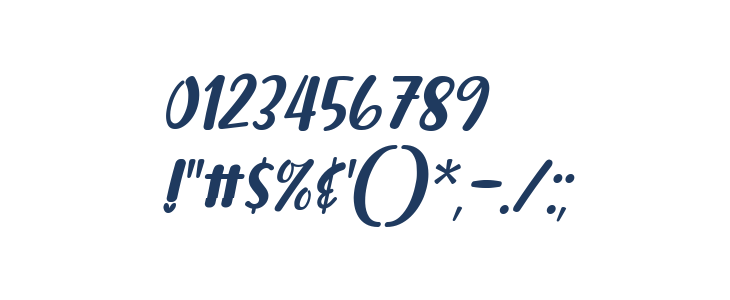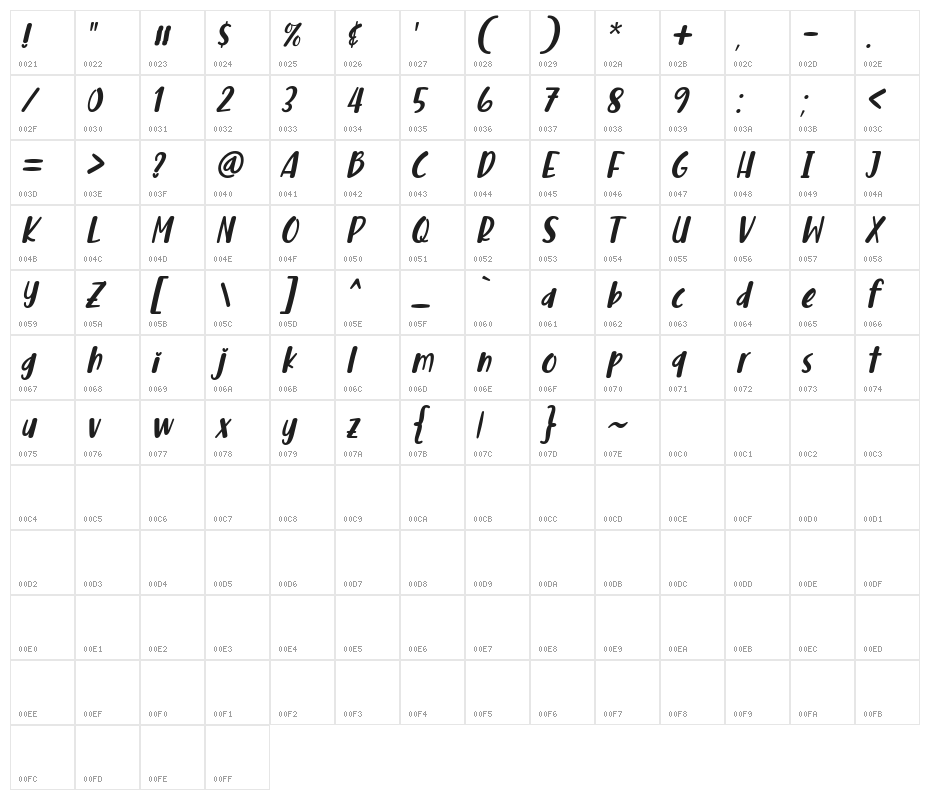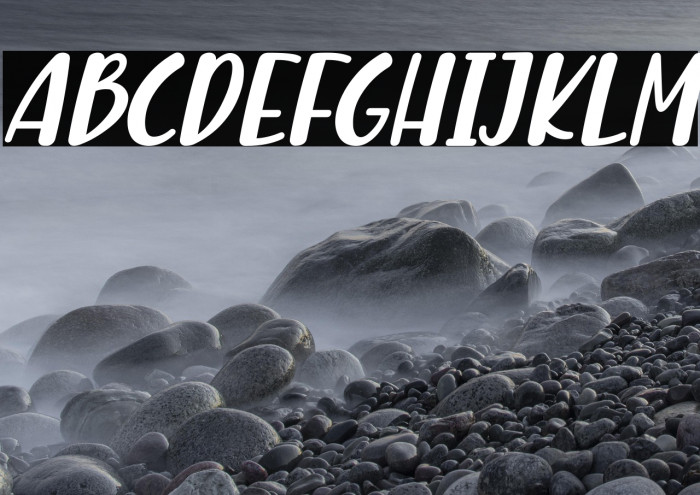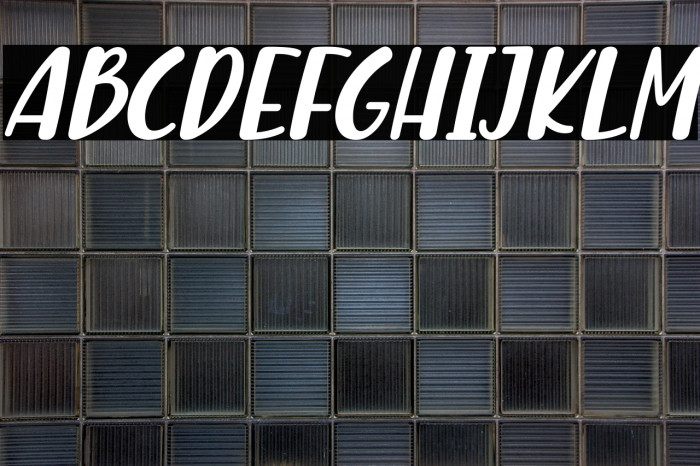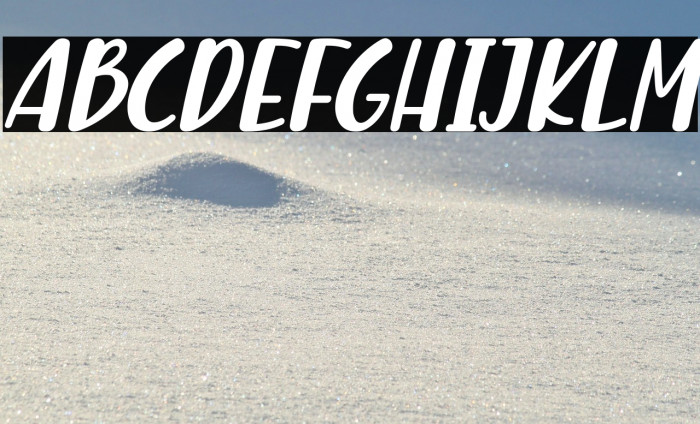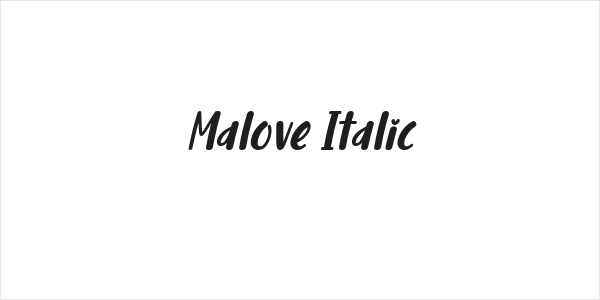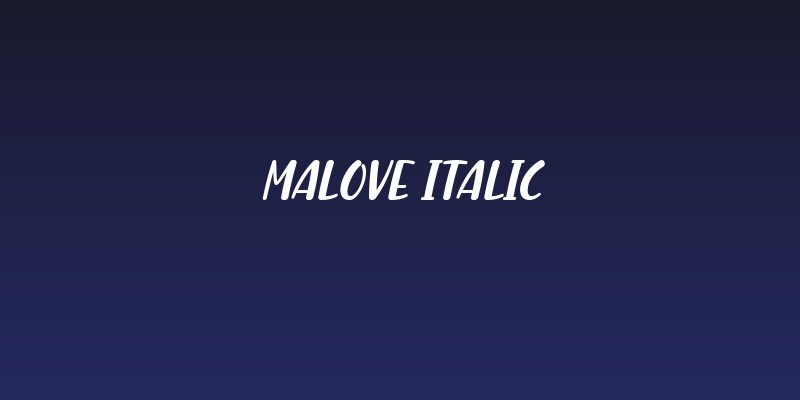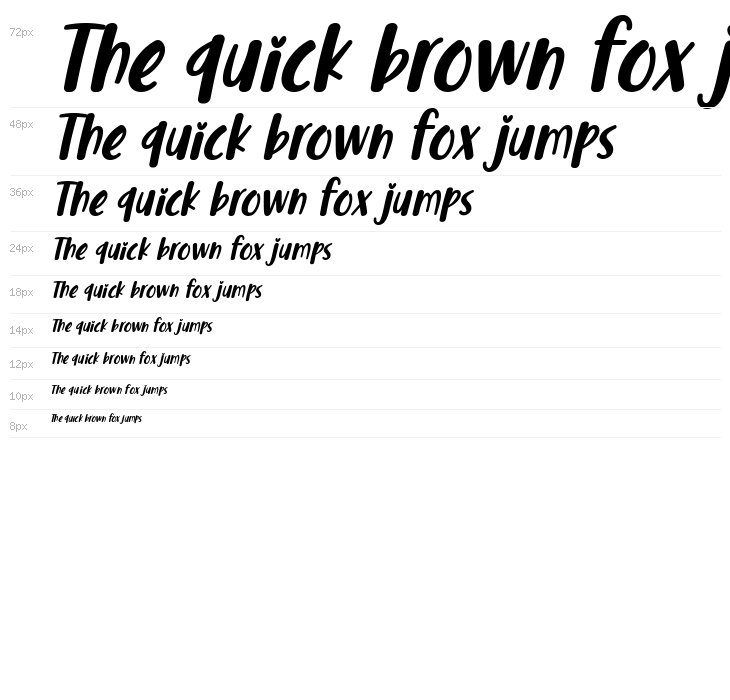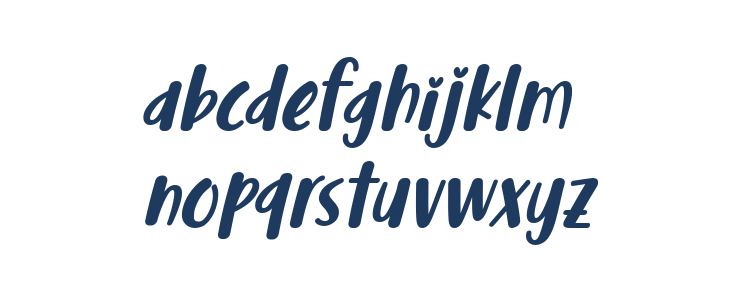
Malove Italic Font
Malove Italic Description
This font features a dynamic and flowing script style, characterized by its smooth, cursive strokes and slight slant, giving it an elegant and lively appearance. The letters are well-connected, creating a sense of continuity and movement. The uppercase letters are bold and prominent, while the lowercase letters maintain a consistent flow, enhancing readability. The numerals and special characters are designed to match the overall style, with a playful yet sophisticated touch. This font is ideal for projects that require a personal and artistic flair.